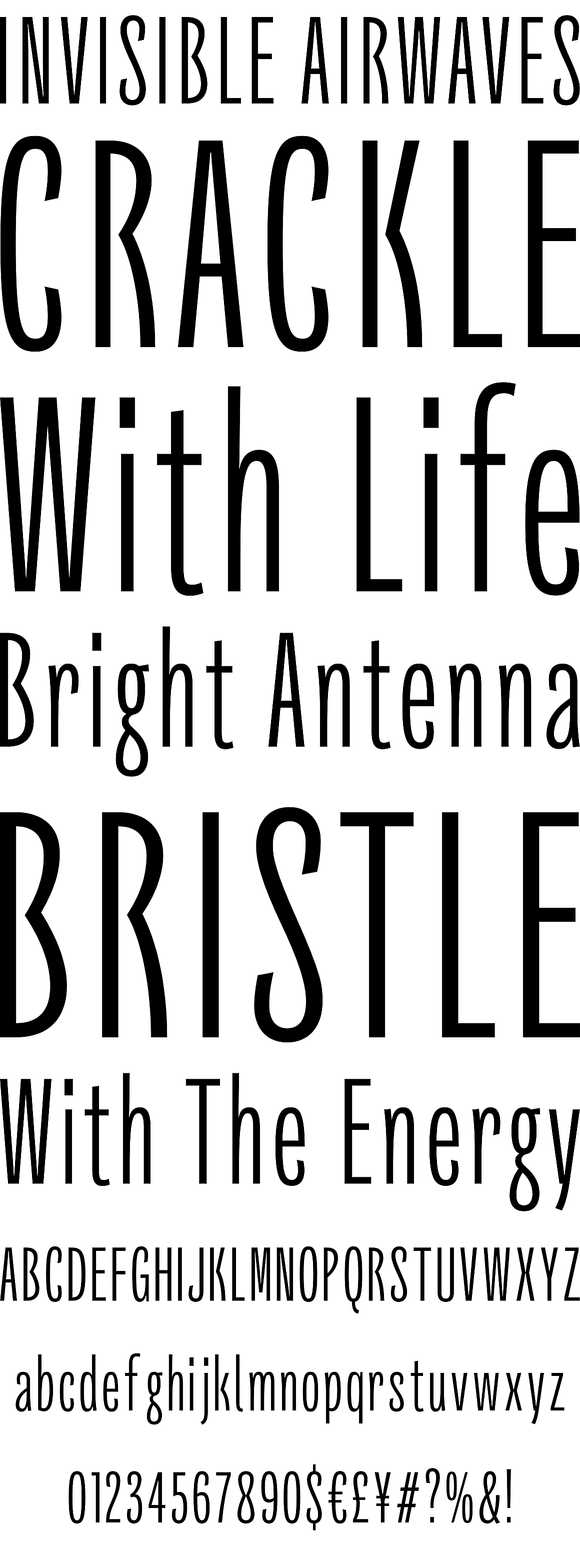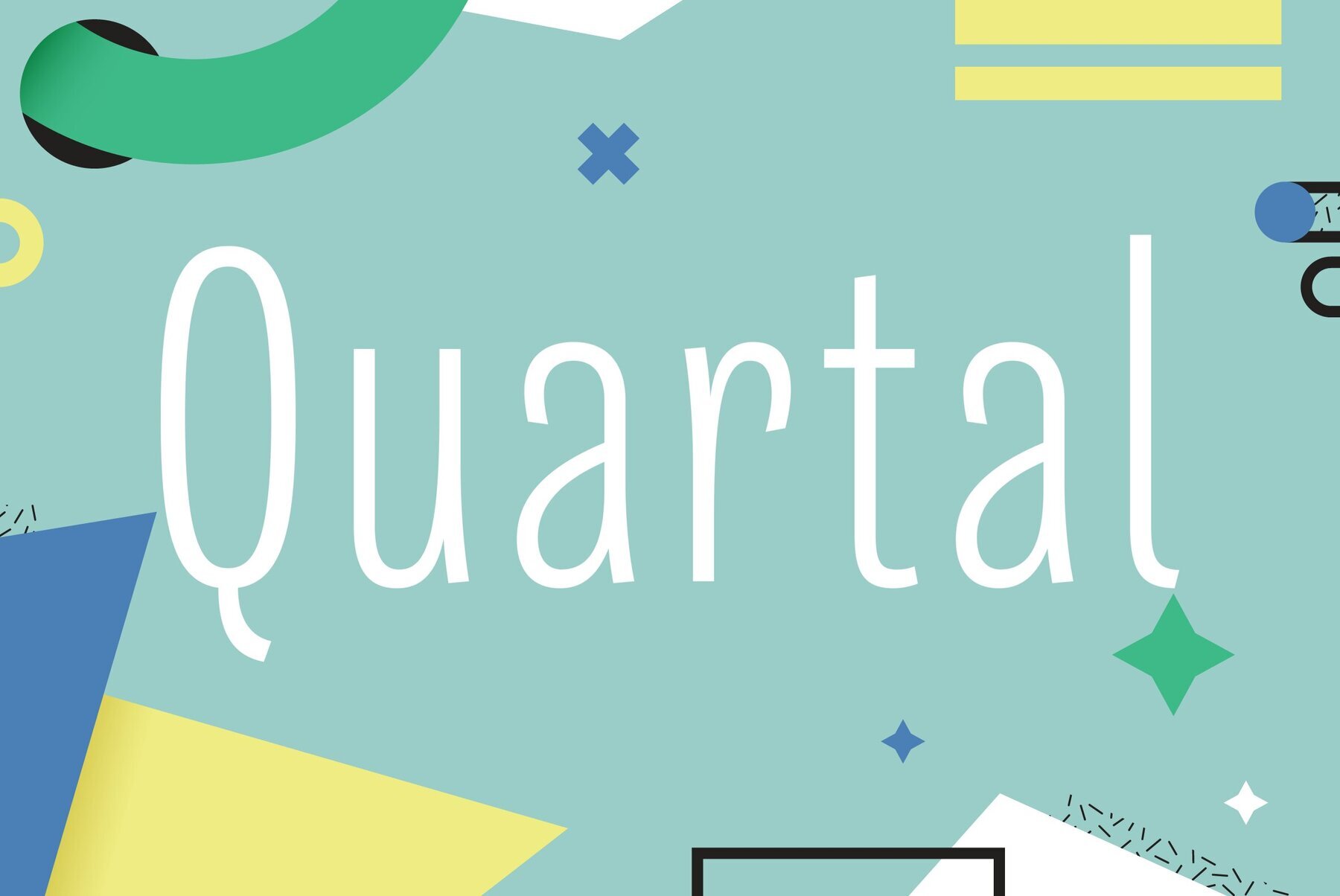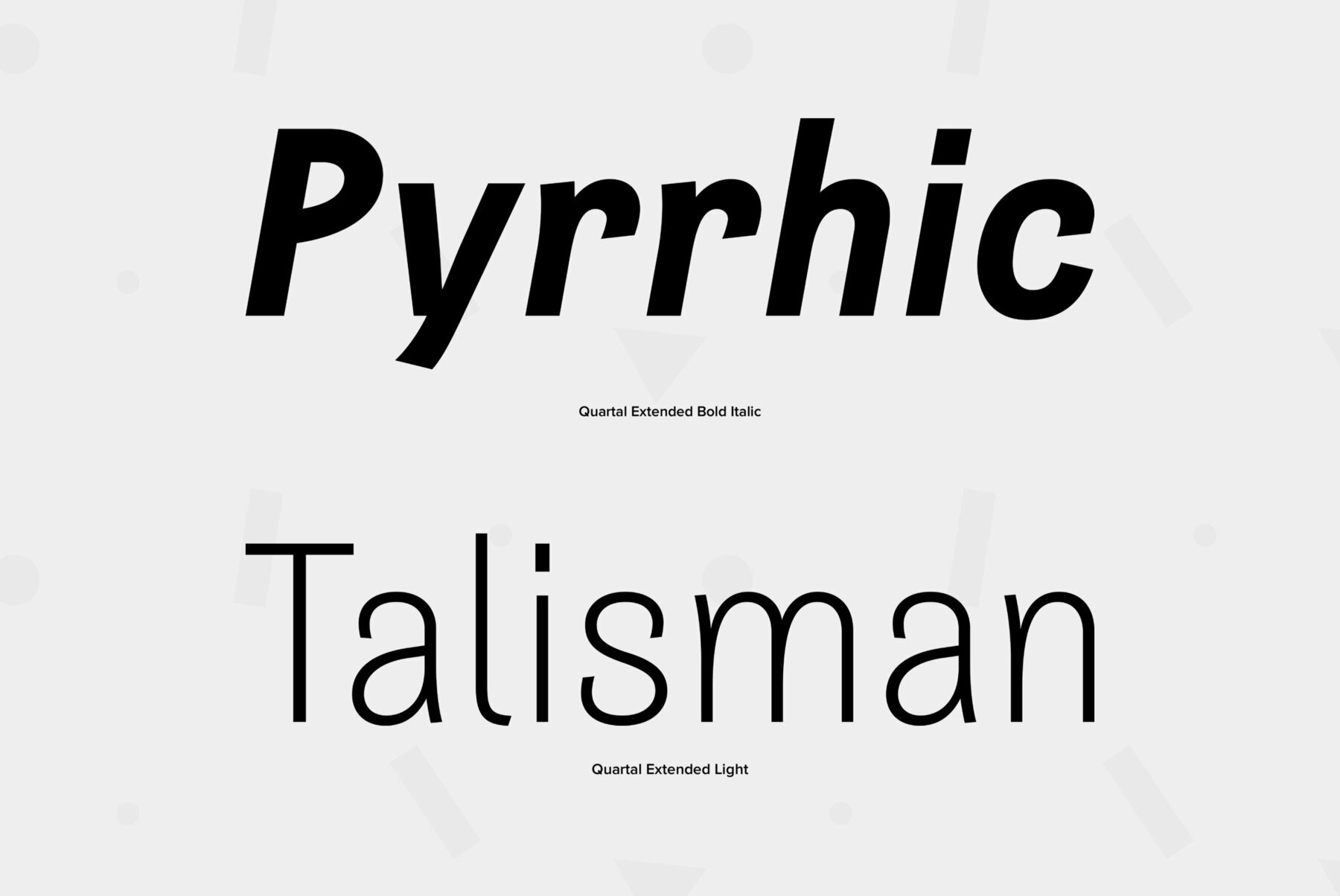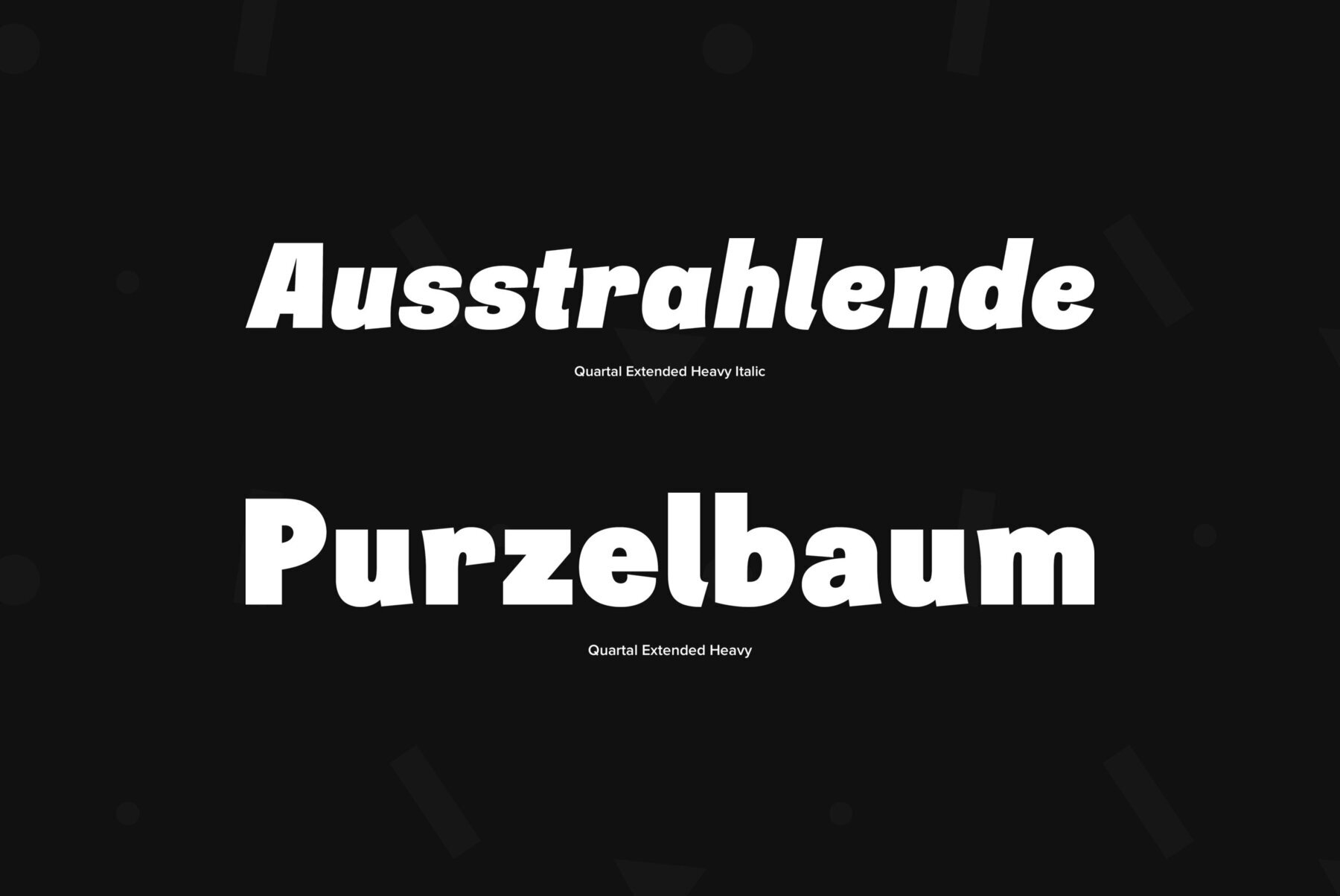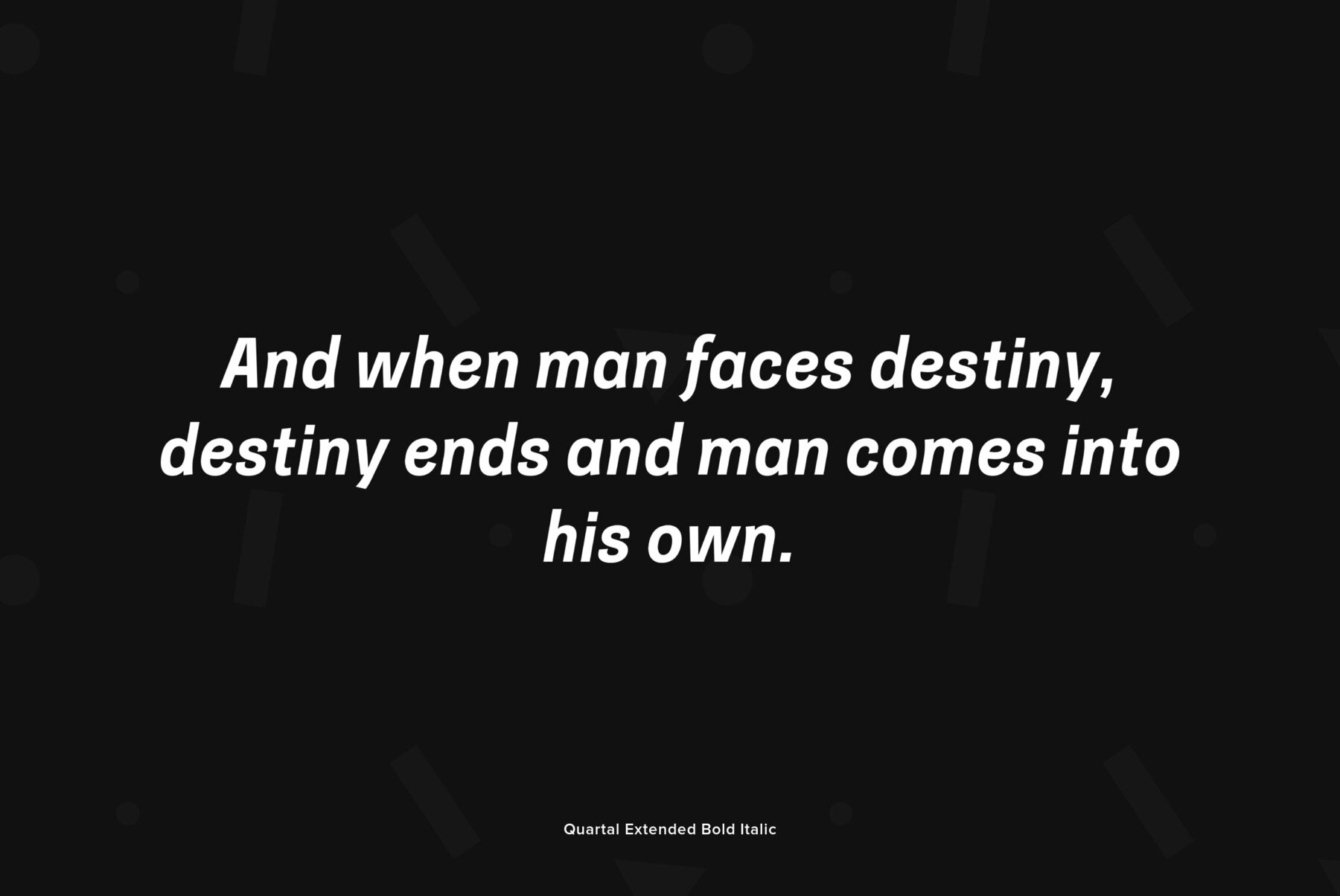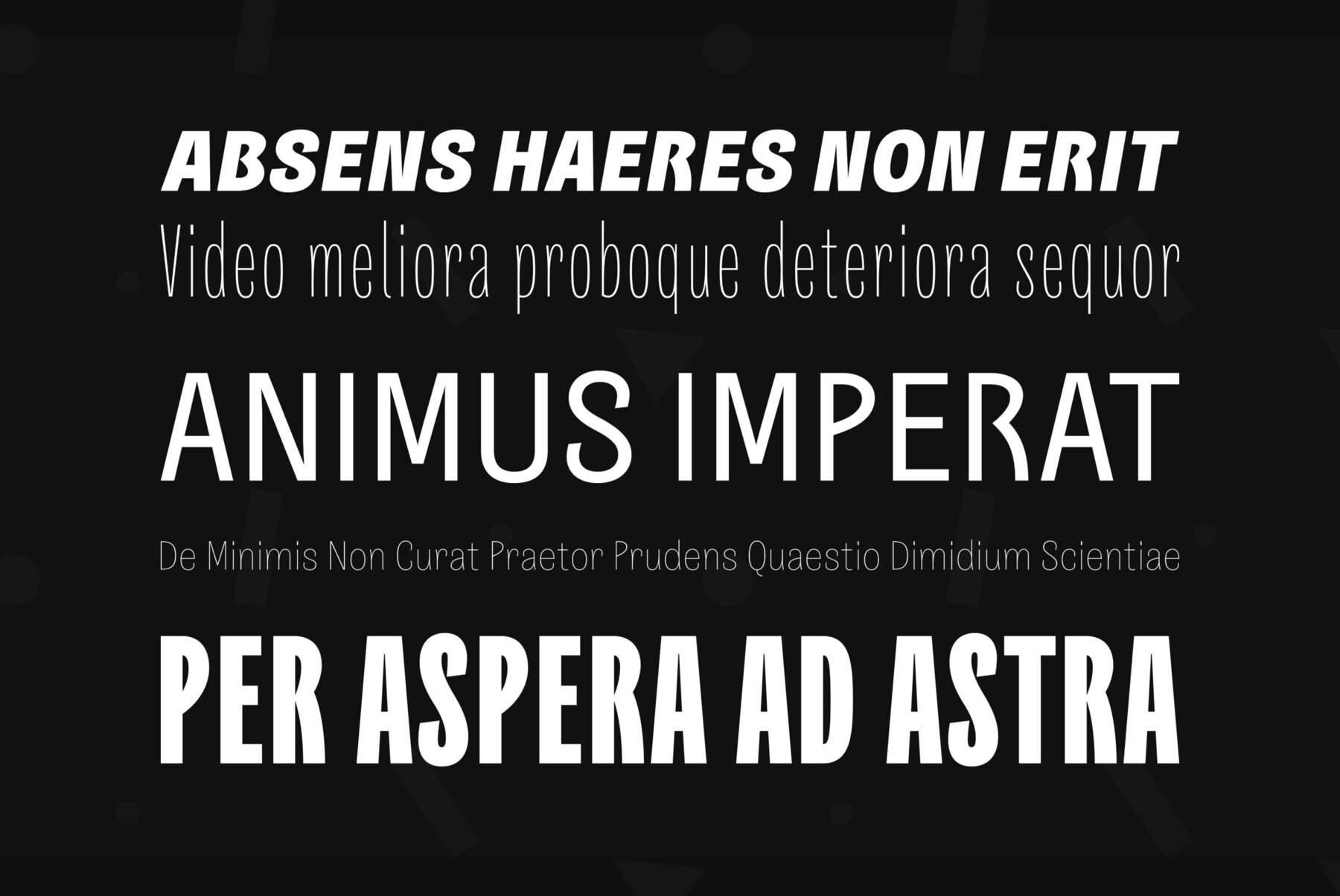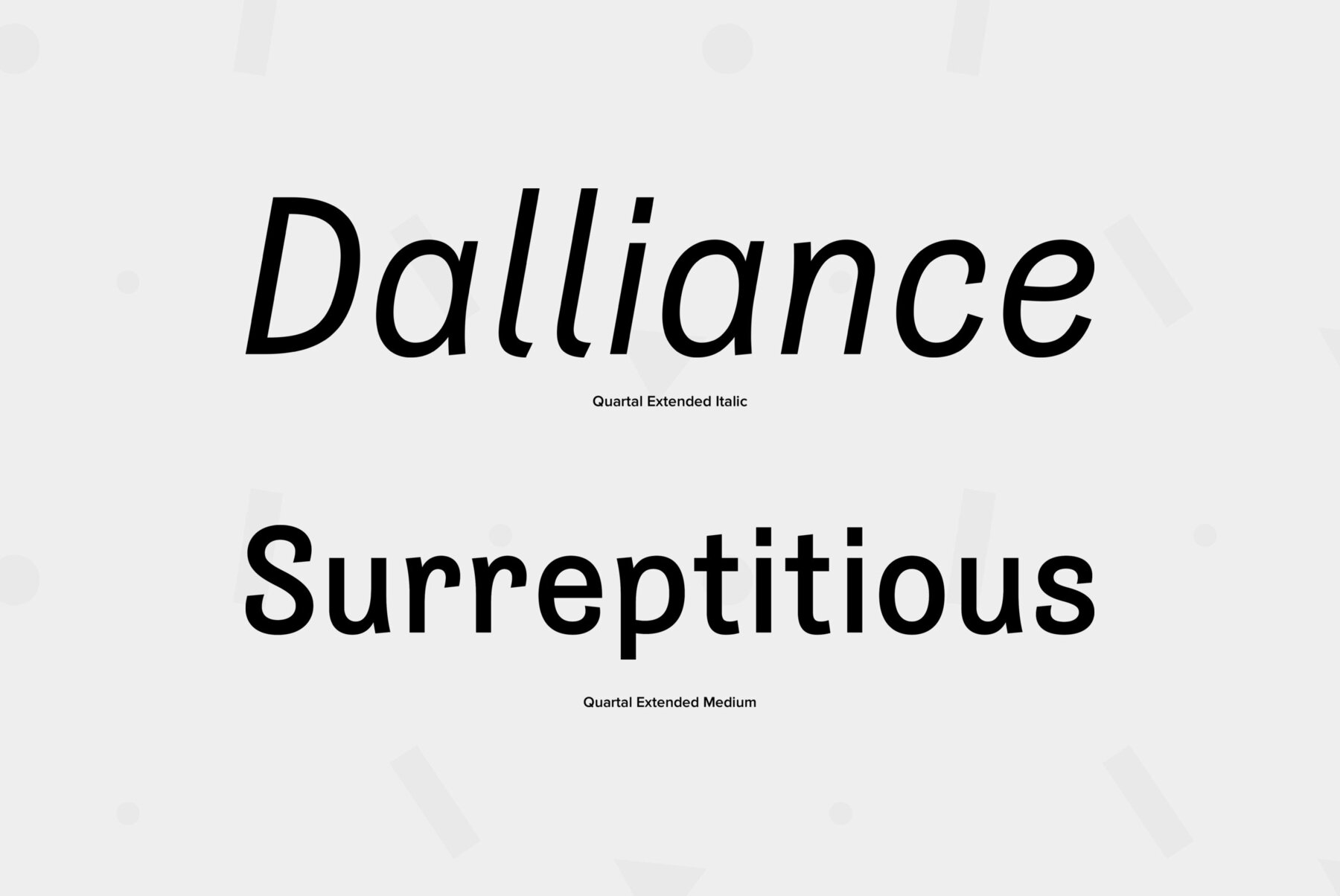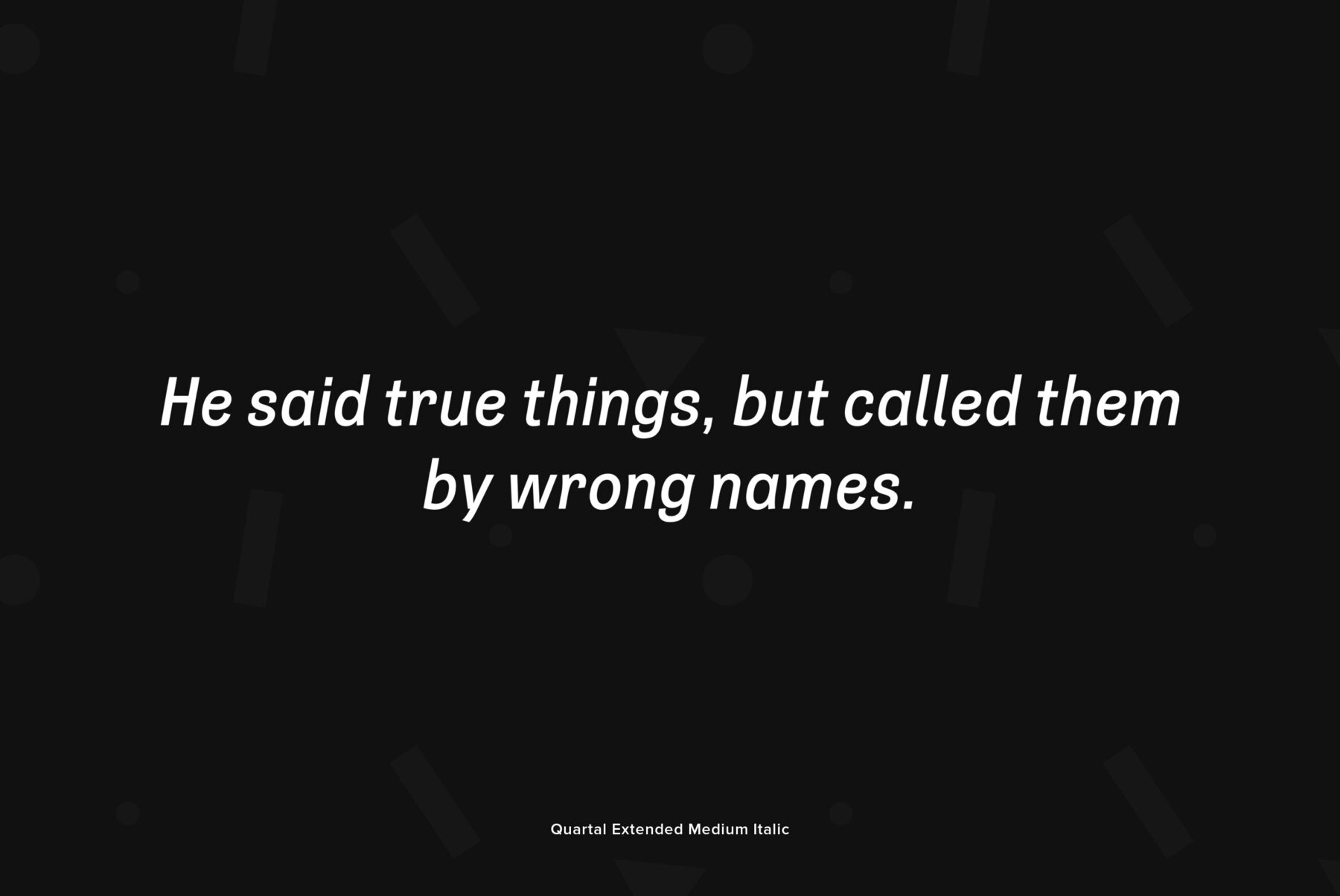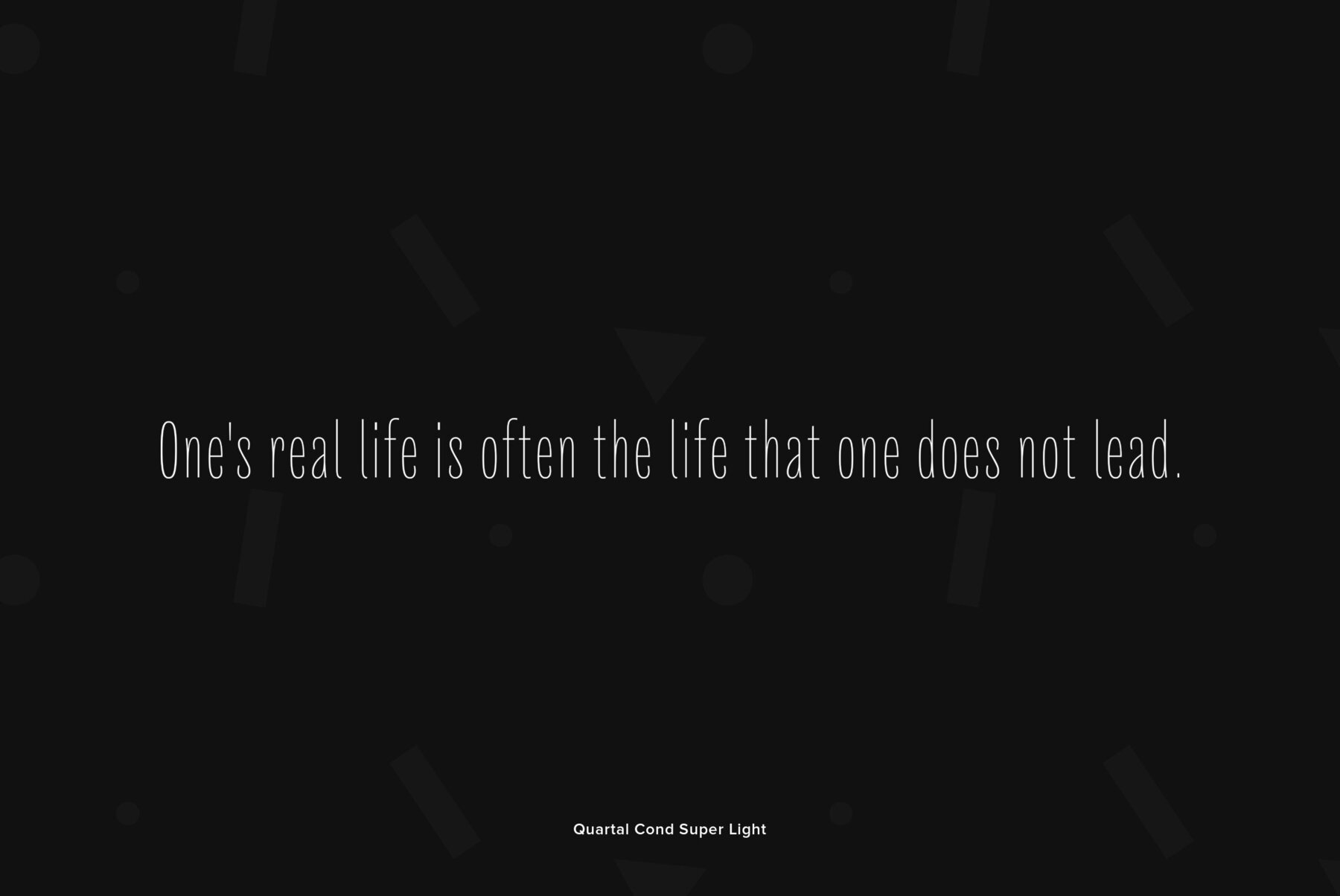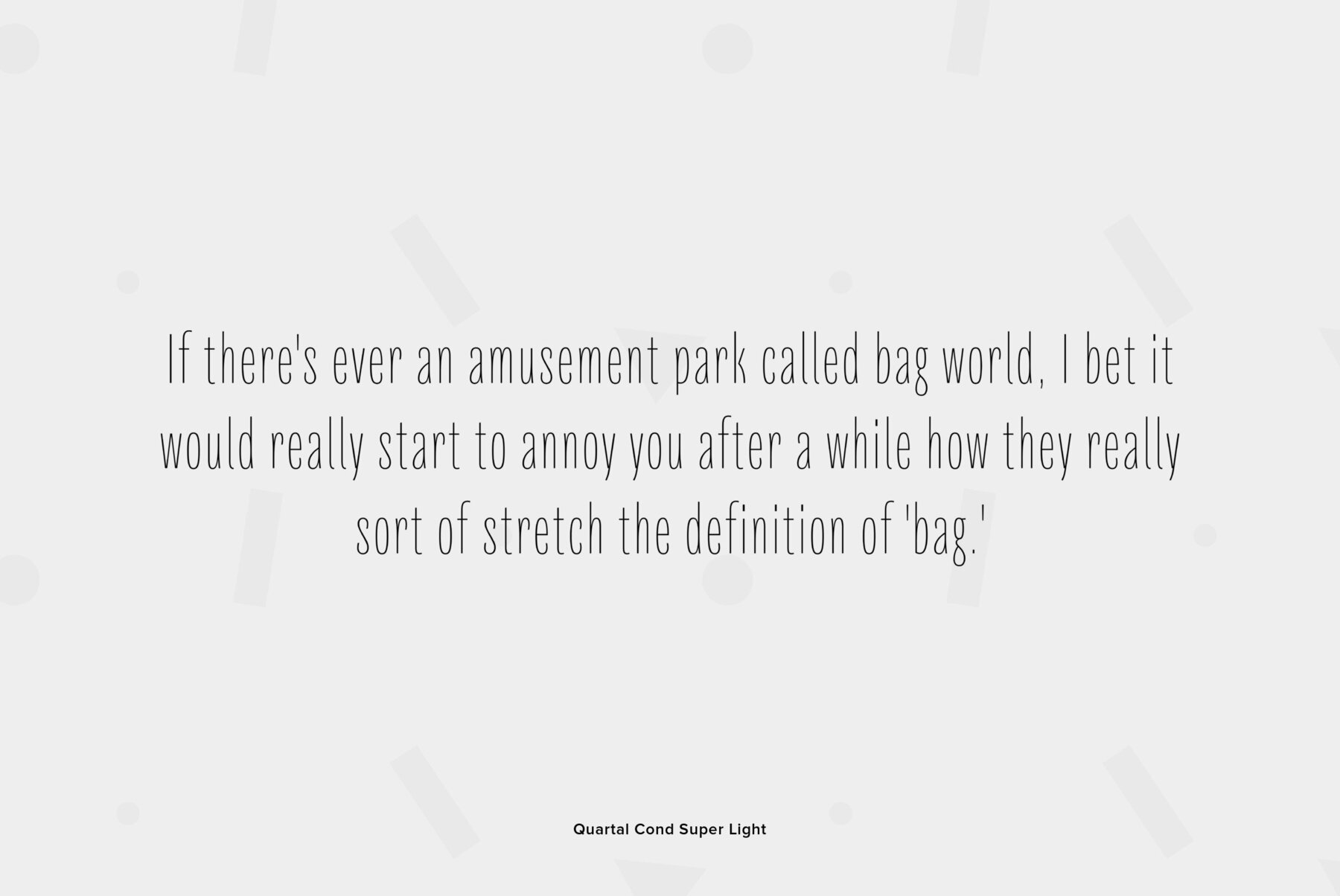
Quartal
Quartal is a family of stylish sans serif typefaces of condensed proportions. The family consists of 5 regular weights, 4 condensed ones and 13 extended styles (7 upright and 6 italic). At first there was intention to release just 4 condensed weights for headlines and advertizing texts, but later 5 styles of wider proportions were added. As the result the area of applications becomes much wider due to possibility to use the font for smaller point sizes. The name Quartal, which in this case means city quarter, according to author's associations emphasizes advertizing nature of the design most suitable to the urban environment. Character set of the fonts covers alphabets of Western Europe and basic Cyrillic languages. Besides it includes a range of alternatives, especially in Cyrillic part. Design was done by Oleg Karpinsky. Released by ParaType in 2010. In 2011 13 new styles of extended proportions were added to Quartal family by the same author. 7 new weights and 6 corresponding italics make Quartal useful for setting not very long texts in advertising and display matter, and for magazines as well.